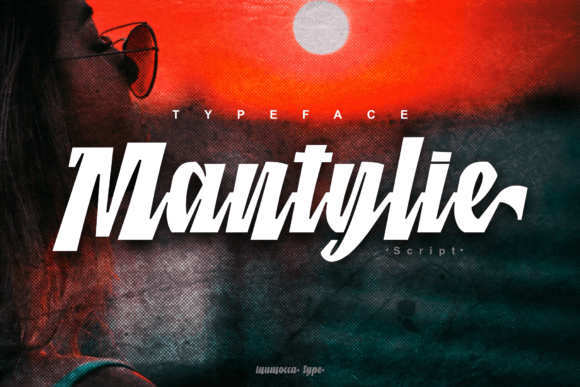
Prepare yourself for a typographic journey like no other, with the enchanting Mantylie Font. This script masterpiece is a symphony of elegance and expressiveness, designed to elevate your creative endeavors to new heights.
Step into a world where the written word transforms into a captivating dance, with each letter a brushstroke on the canvas of your imagination. Mantylie's meticulously crafted curves and flourishes embody the essence of modern calligraphy, bestowing an air of timeless sophistication upon your designs.
Imagine the allure of a wedding invitation adorned with Mantylie's delicate script, inviting guests to an unforgettable celebration. Or envision the heartfelt words of a loved one etched in its graceful lines, forever cherished as a testament to your bond.
Mantylie is more than just a font; it's an extension of your creativity, a tool that empowers you to express yourself with unparalleled flair. Its versatility shines in a myriad of applications, from the intimate setting of personal correspondence to the grand scale of branding campaigns.
Indulge in the boundless possibilities Mantylie offers. Let its flowing lines guide your hand as you create designs that captivate, inspire, and leave an everlasting impression. Embrace the allure of the written word, reimagined through the artistry of Mantylie.